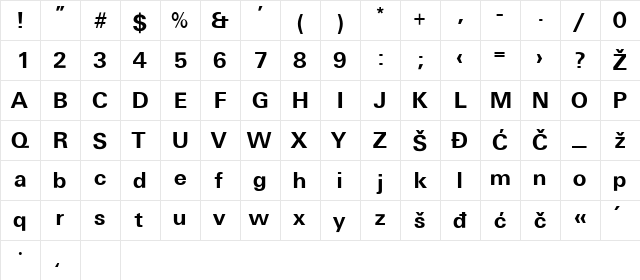
Universans650_PP Bold
Design Context for Universans650_PP Typeface
Universans650_PP offers clean, dependable letterforms without strong stylistic allegiance, making it a practical choice for designers who need flexibility. The heavy weight commands attention and anchors typographic hierarchies.